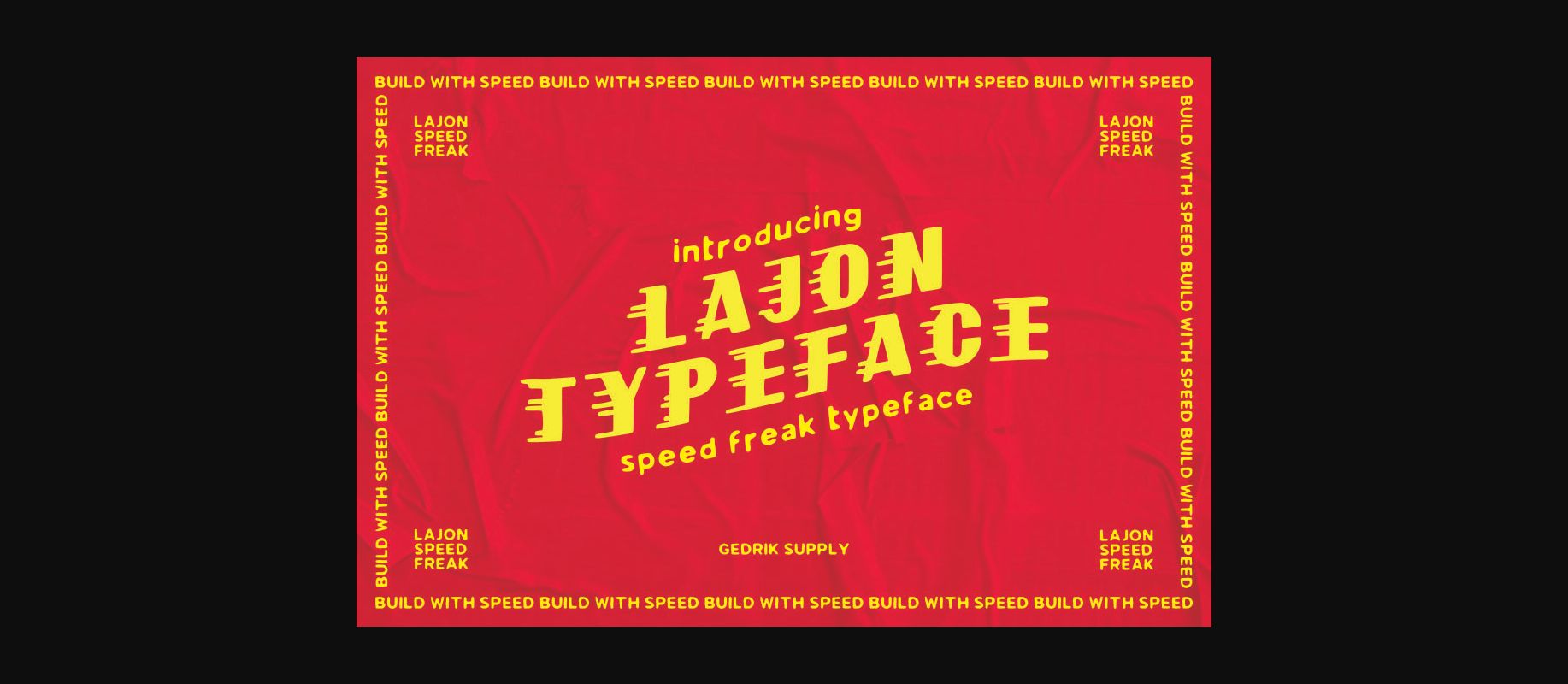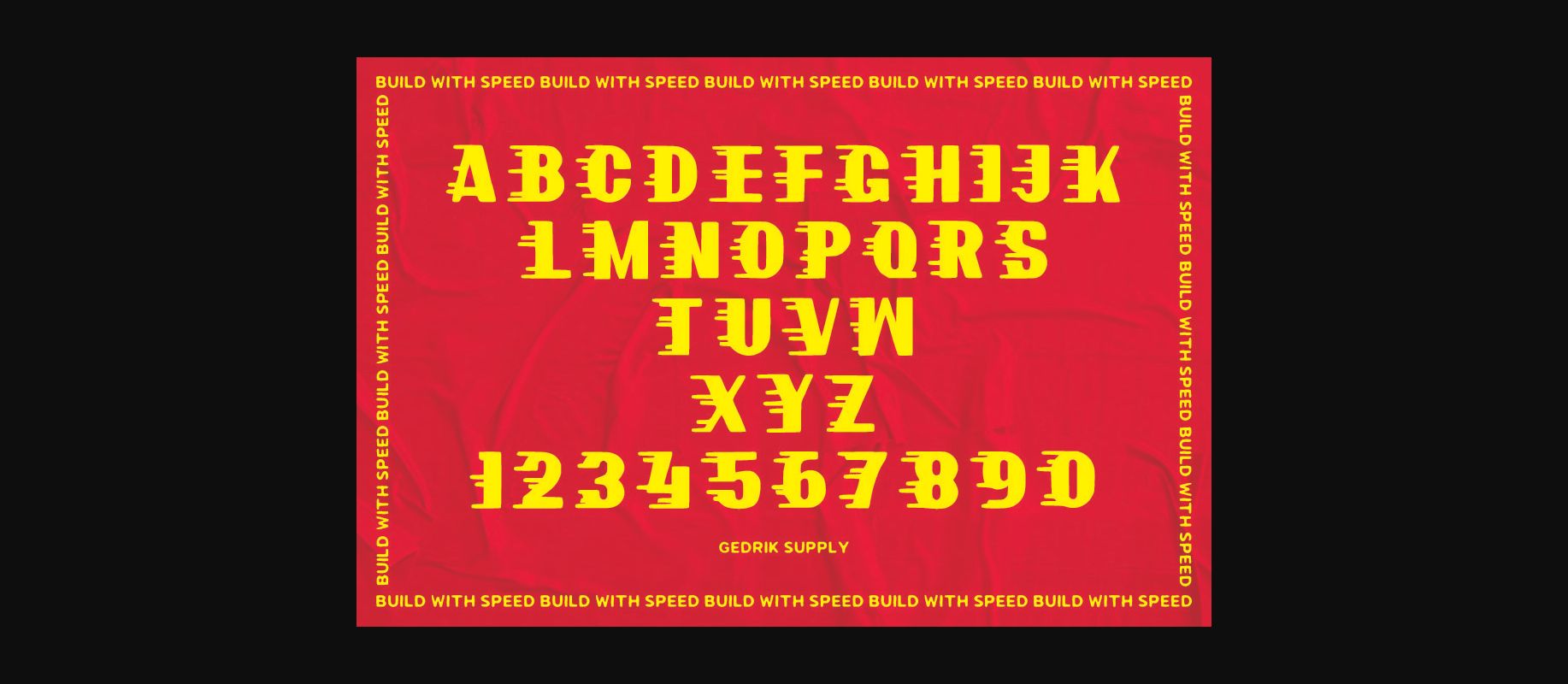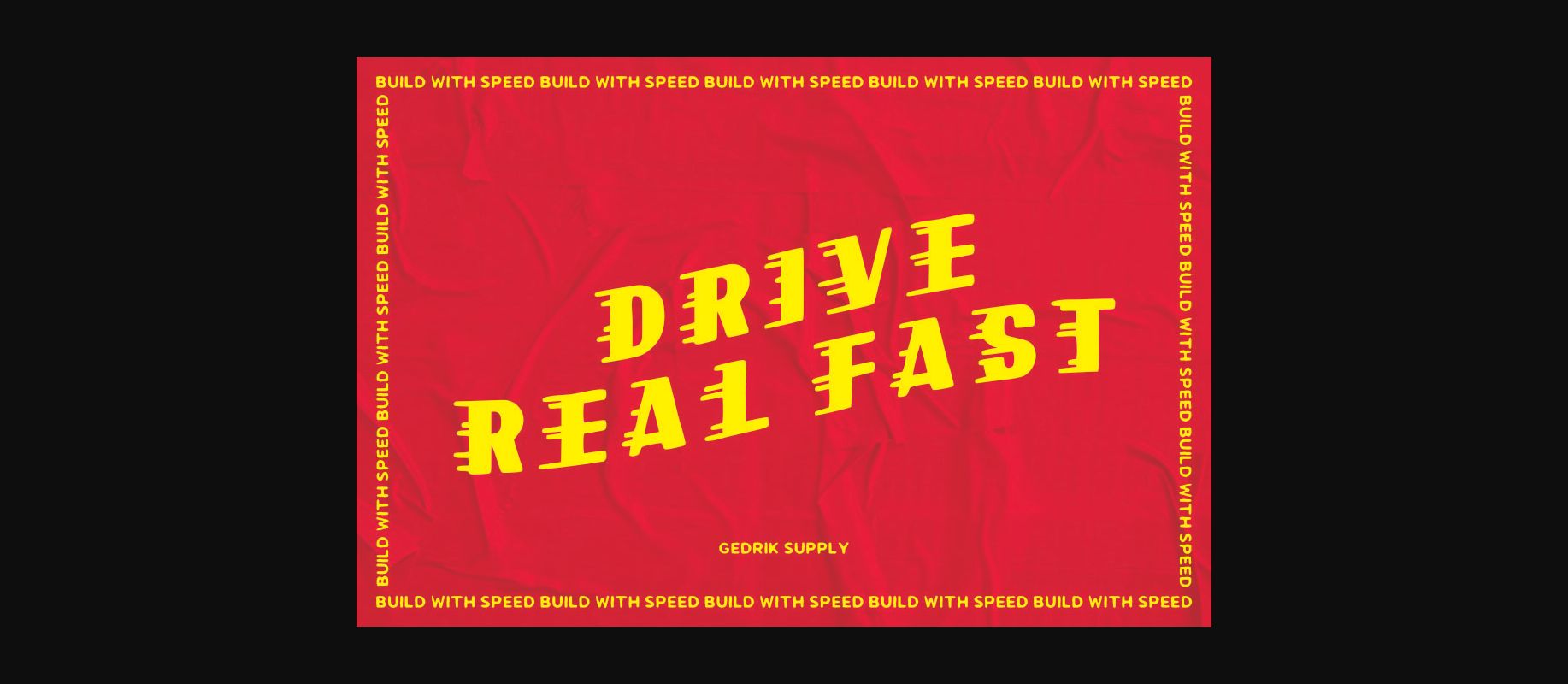
Lajon Font
About Lajon Font
Lajon is an incredibly cool decorative font. No matter the topic, this font will be an incredibly asset to your fonts’ library, as it has the potential to elevate any creation.